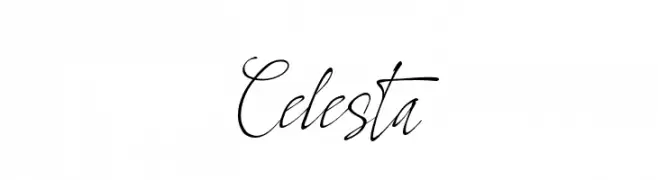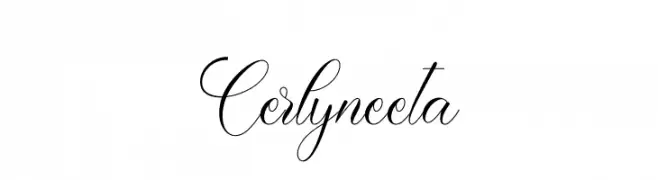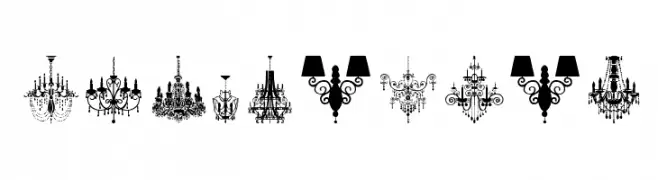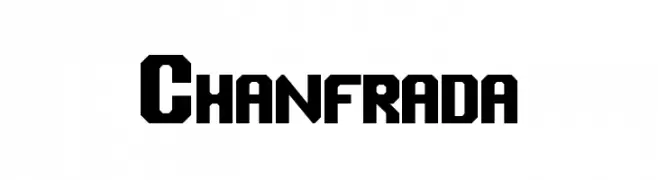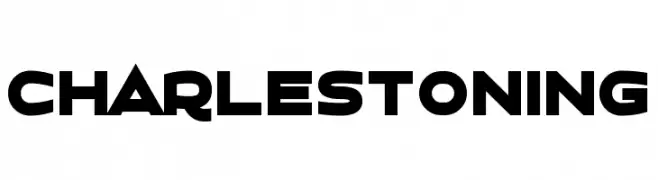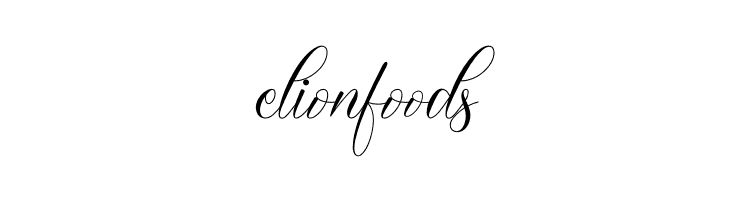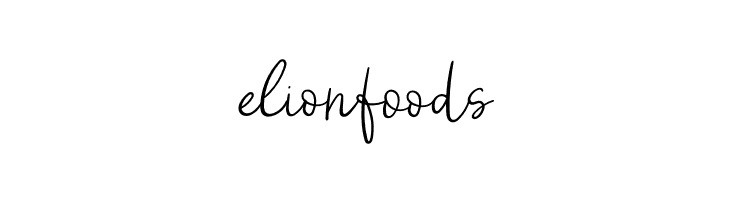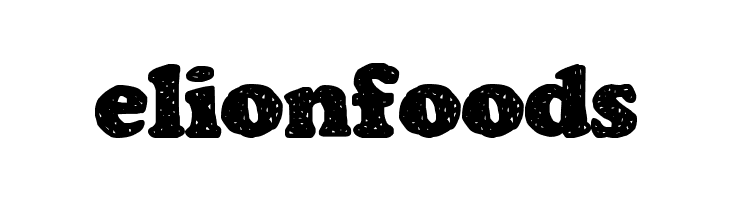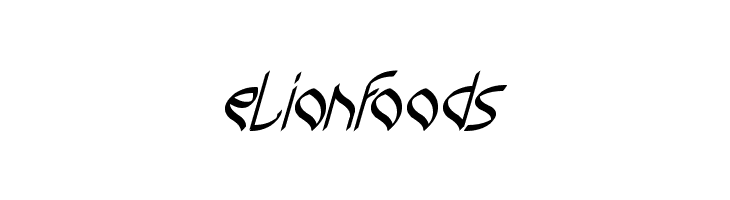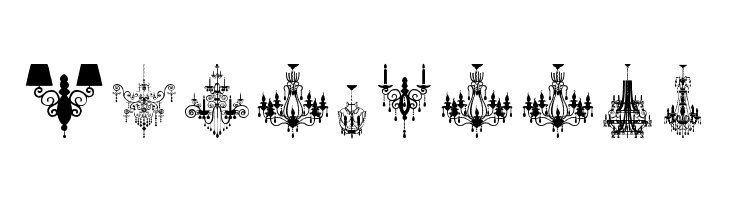
• Celesta
An elegant, flowing script font with graceful curves and sophisticated style.
• Ceriya
A playful, elegant handwritten font with fluid strokes and a modern appeal.
• Cerlyneeta
An elegant script font with flowing, interconnected letters and decorative swashes.
• champion coffee cup
A dynamic, angular font with a modern calligraphic style.
• Chandelier
A set of chandelier vector icons and silhouettes.
• Chanfrada
A bold, geometric font with angular letterforms and a modern, industrial style.
• Charlestoning
• Chatsile
Bold, playful handwritten script font.
• Chemistry by Denne
A bold, textured font with a playful, hand-drawn style.